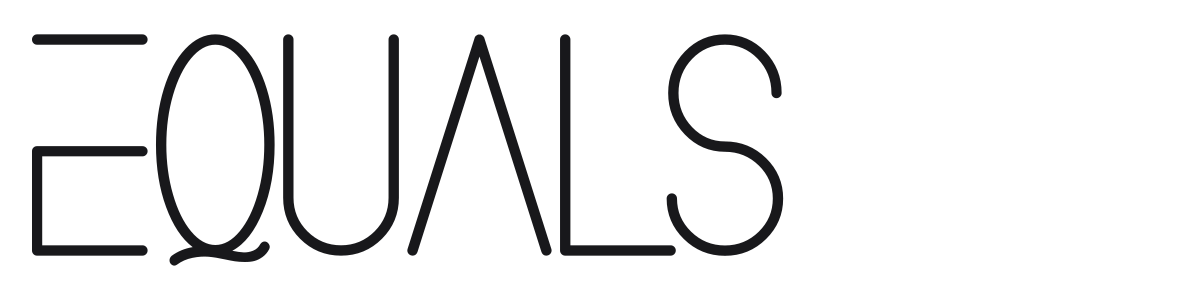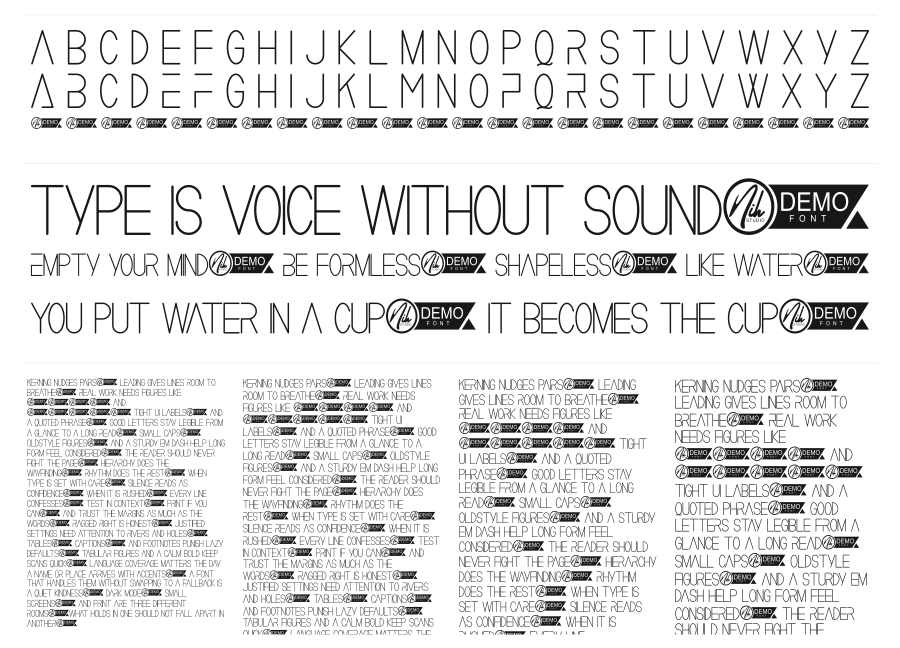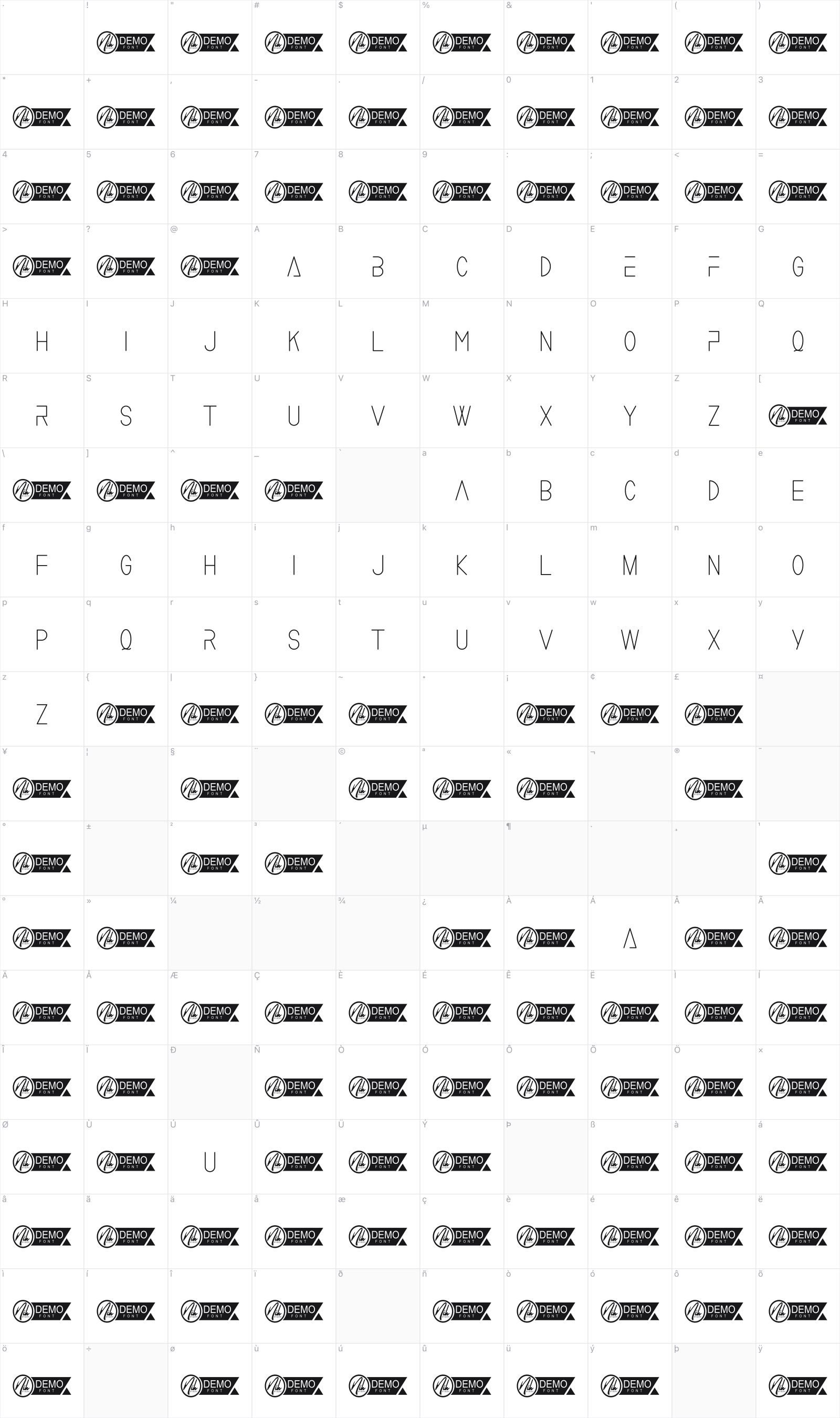
Equals
Equals is an ultra-thin condensed geometric sans with tall, narrow proportions and a distinctly elegant character. Its rounded forms contrast gently with strict vertical strokes, creating a refined balance that reads as both modern and quietly art-deco. The extreme thinness and open spacing make it compelling at large display sizes for fashion, beauty, and editorial work.